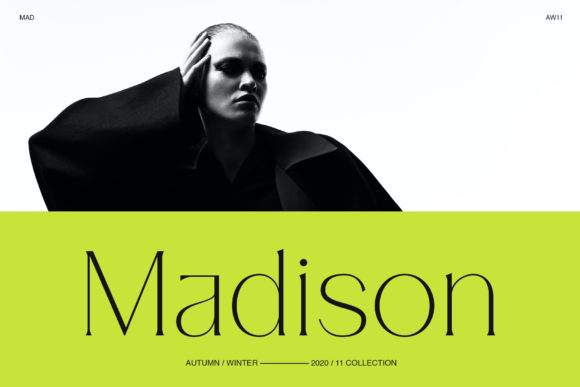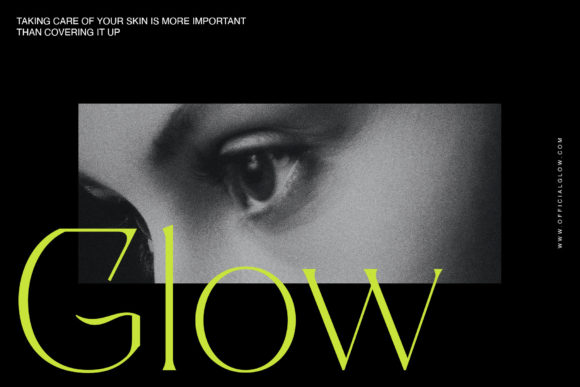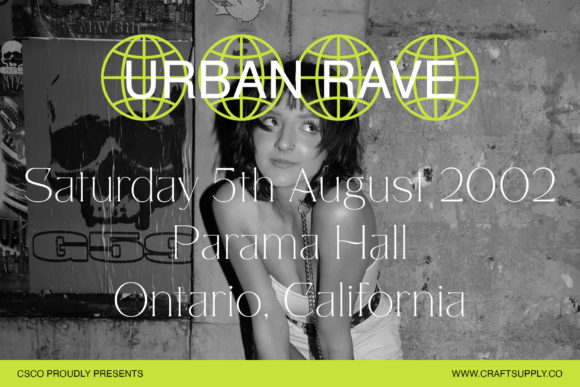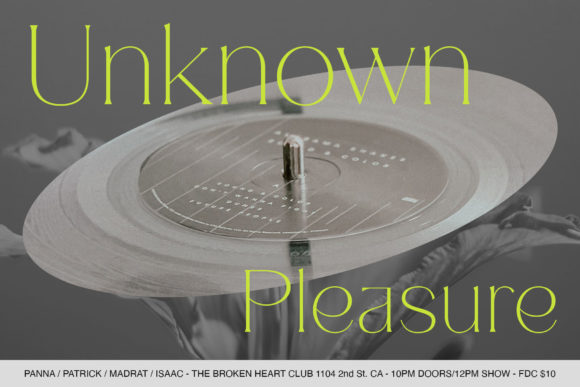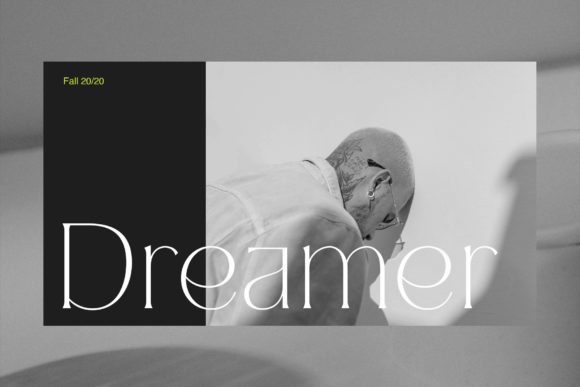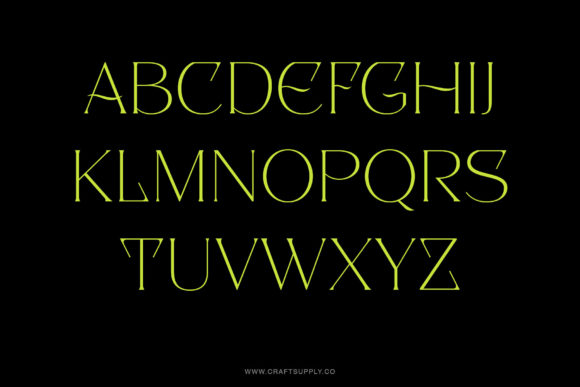
Introduction to Pilated – Modern Serif Typeface Font
Have you ever been working on a creative project, pouring your heart and soul into every detail, only to feel like something is missing? The perfect font can make all the difference, elevating your design from ordinary to extraordinary. That’s where Pilated – Modern Serif Typeface Font comes in – a stunning, high-quality font that will take your designs to the next level.
As a valuable resource for designers, Pilated – Modern Serif Typeface Font offers a free download with a transparent background, making it easy to integrate into any design project. Its elegant and stylish design is perfect for creating a professional look that’s sure to impress. Whether you’re working on a business card, a logo, or a brochure, this font is sure to add a touch of sophistication and class.
Key Features of Pilated – Modern Serif Typeface Font
- High-quality design resource for creative projects, suitable for both print and digital applications.
- Features a clean and modern serif design with transparent background, allowing for seamless integration into any design.
- Perfect for use in headings, titles, and body text, making it an ideal choice for designers working on various creative projects.
- Includes a comprehensive character set, including uppercase and lowercase letters, numbers, and punctuation marks, making it a versatile design resource.
Honest Review: Pilated – Modern Serif Typeface Font
I recently stumbled upon the Pilated – Modern Serif Typeface Font while searching for a high-quality design resource for a creative project. I was immediately drawn to its sleek and modern aesthetic, making it perfect for a variety of design applications.
- ✨ High-quality design that looks great on any background, including transparent backgrounds.
- ✨ A wide range of font styles, from bold to light, making it versatile for various creative projects.
One thing that stood out to me was the clear and transparent background, which made it easy to integrate into my design without any issues. The font also looks great when used in conjunction with other design elements.
- ⚠️ Limited character set, which may be a concern for designers who need a wide range of characters.
- ⚠️ Not suitable for very small text sizes, which can become blurry and difficult to read.
Overall, I was impressed with the Pilated – Modern Serif Typeface Font and would highly recommend it for designers looking for a high-quality, modern serif font. Just be aware of its limitations and use it accordingly.
Pilated – Modern Serif Typeface Font
Tips for Getting the Most Out of Pilated
Use the transparent background feature to create a seamless design. Experiment with different font sizes and colors to create visual interest.
The Pilated – Modern Serif Typeface Font is ideal for use in logos, business cards, and other branding materials. It can also be used for creative projects such as posters, flyers, and social media graphics.